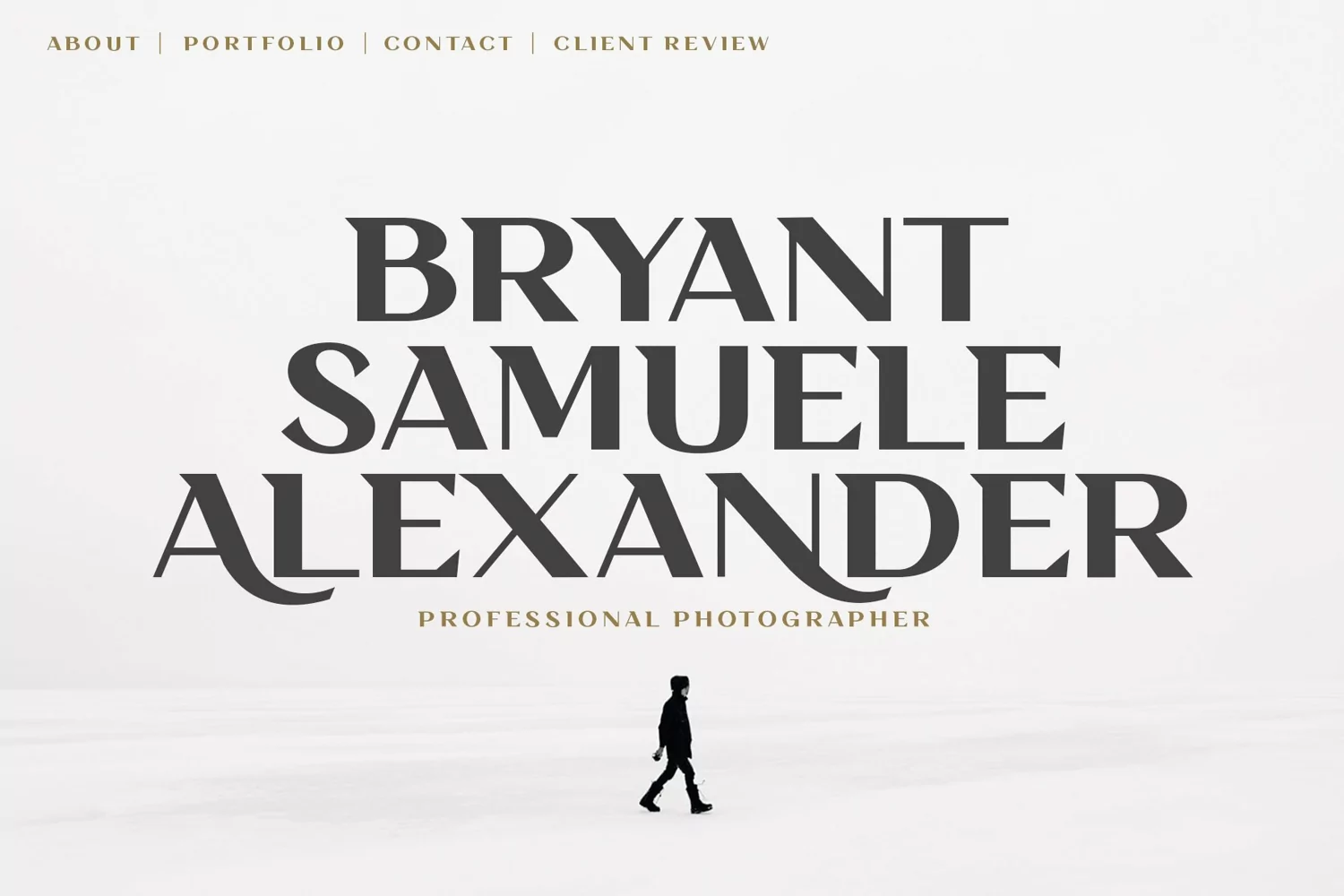
Sakari is designed for short-form and often large-format applications such as billboards or posters, logotypes, titling in magazines or websites and book covers.